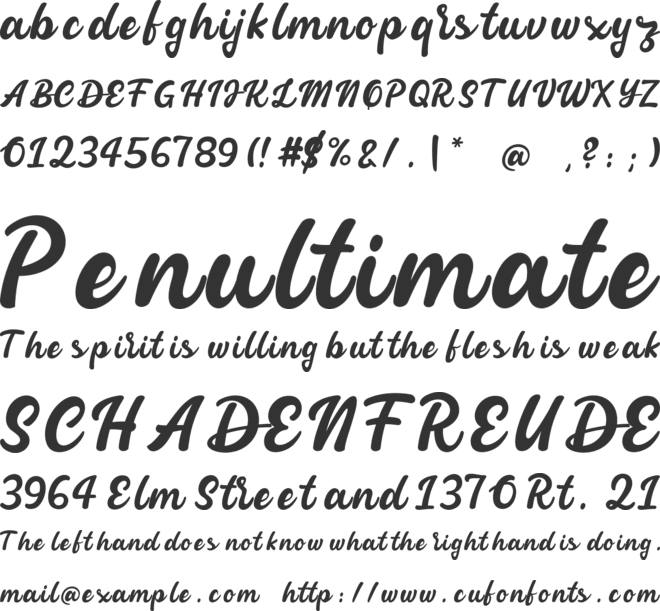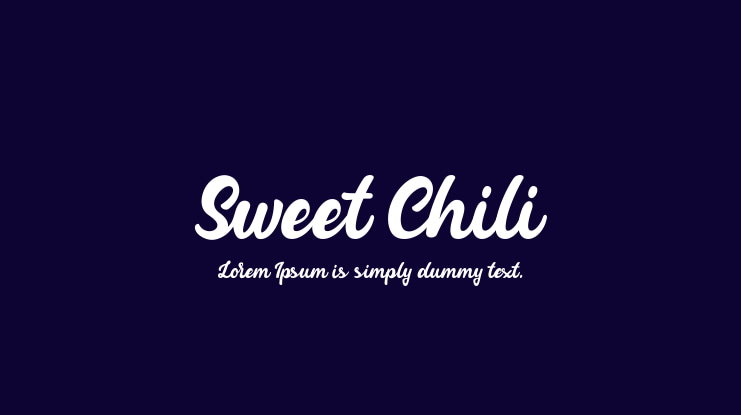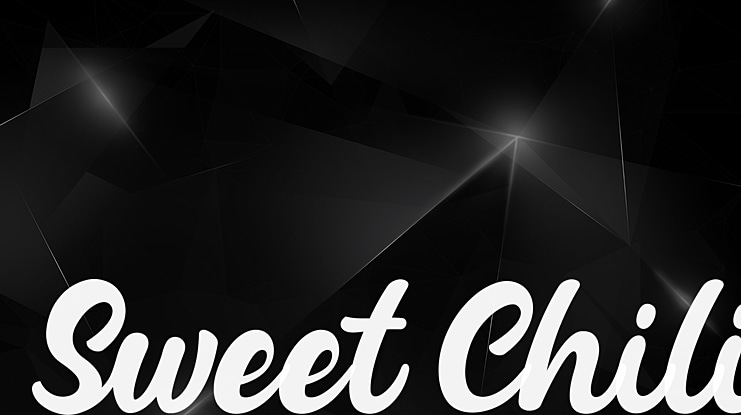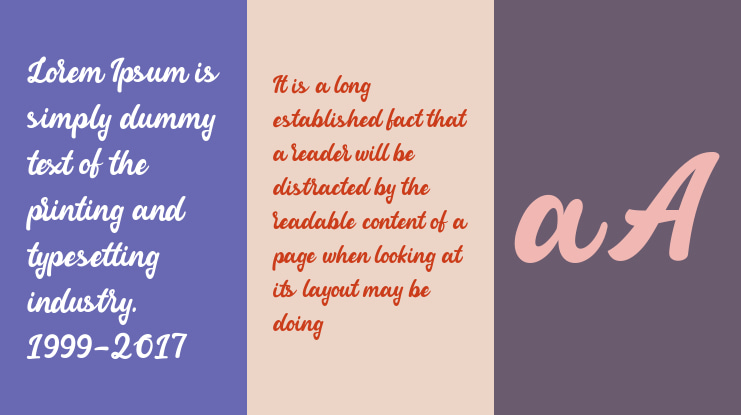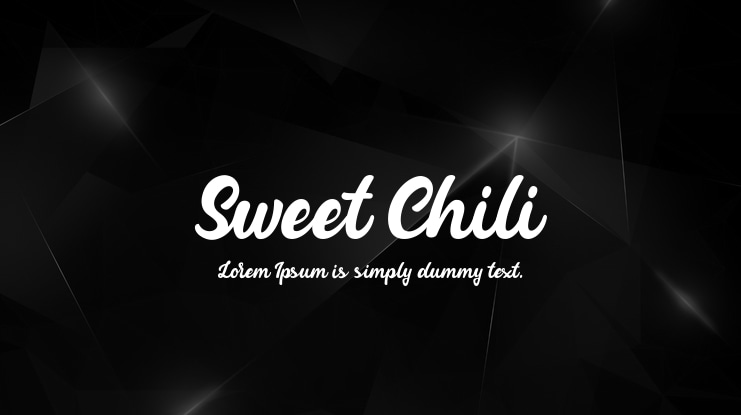
Sweet Chili Font
Christoph Dörre
Spice up your font gallery with our newest script font! Sweet Chili has a modern, clean look and a wide range of features to complete your next design project. Sweet Chili also has a wide multilingual support, symbols and numbers.The full version comes with a commercial license (valid for companies with up to 10 members) and gives access to all glyphs! Visit www.shapedfonts.com/sweet-chili to buy a license.